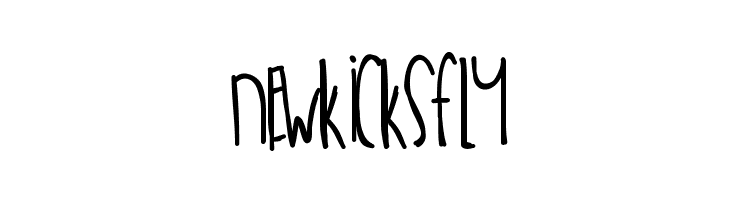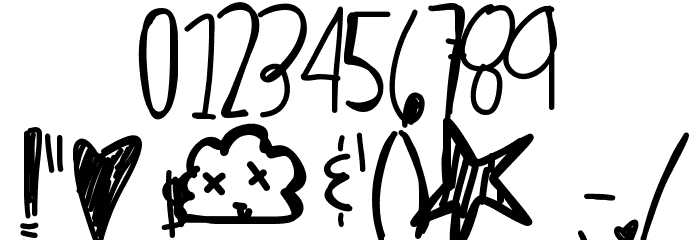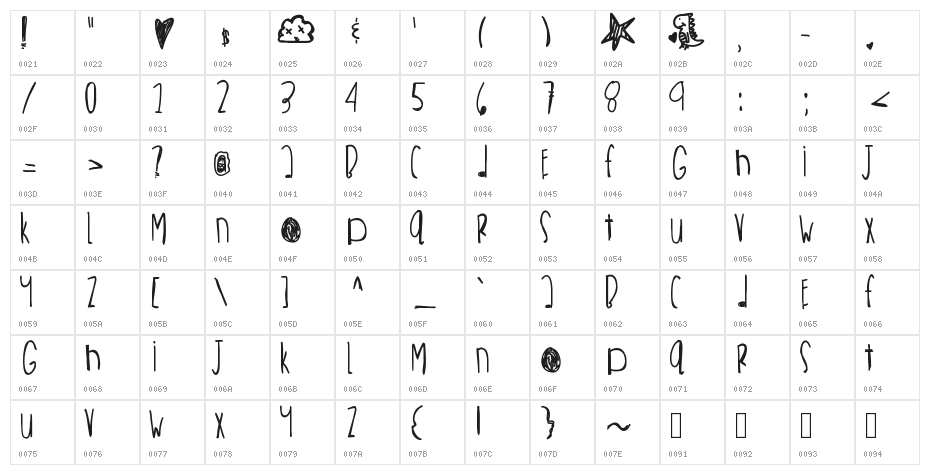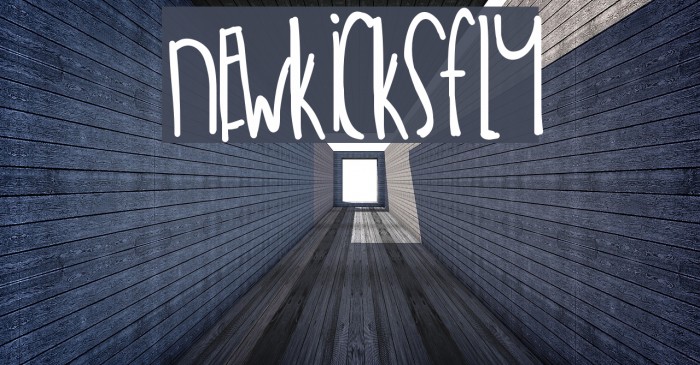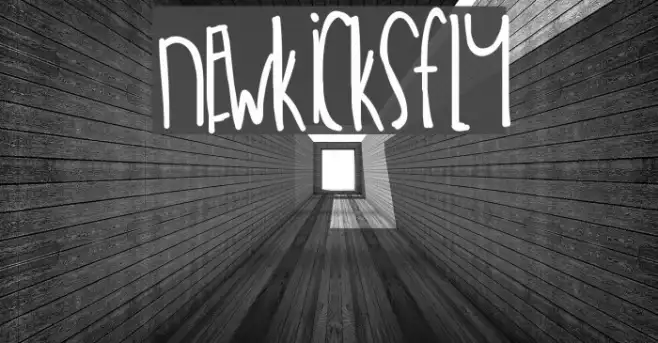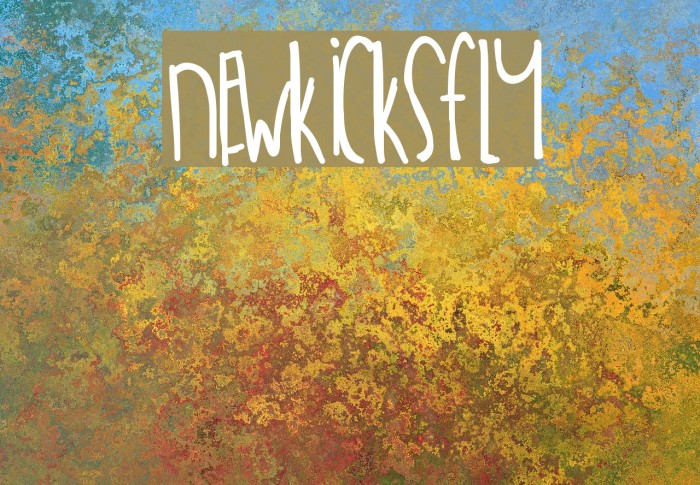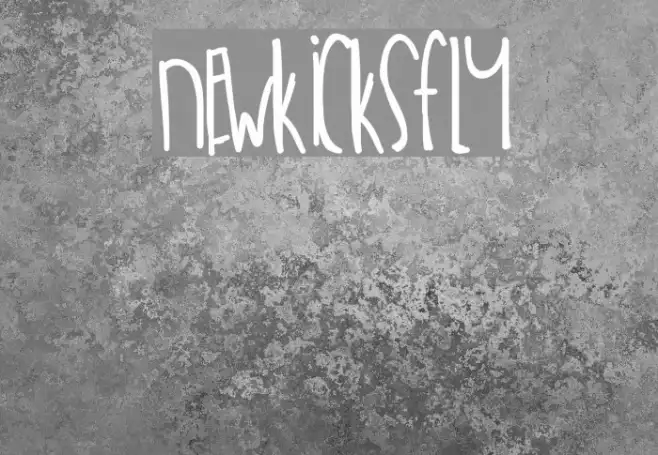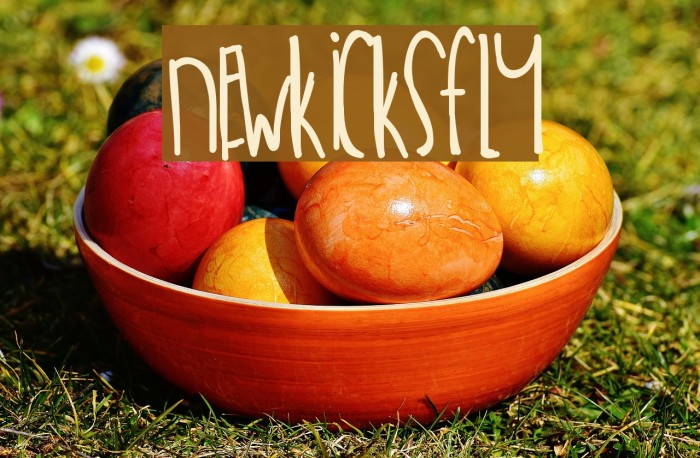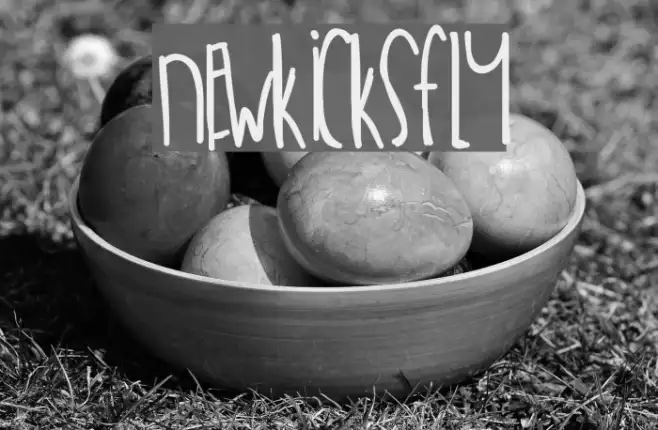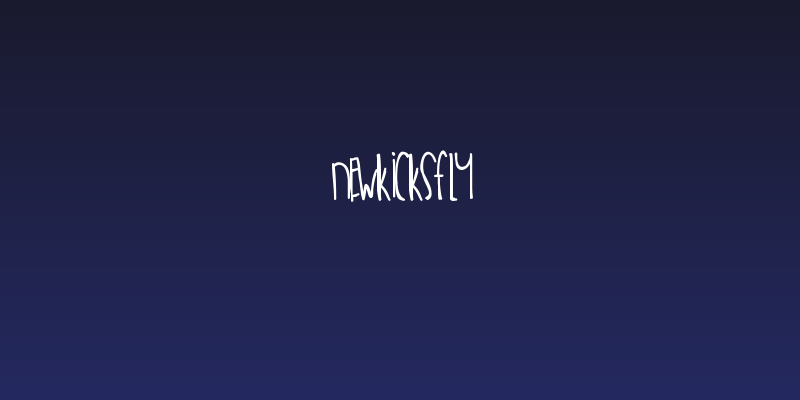
NewKicksFly Font
NewKicksFly Description
This font features a playful and energetic handwritten style with a casual, informal appearance. The letters are tall and narrow, with a consistent stroke width that gives it a uniform look. The characters have a whimsical touch, with some letters featuring unique loops and curves that add personality. The numbers and special characters maintain the same lively style, making it suitable for creative projects. The overall design is approachable and friendly, perfect for conveying a sense of fun and spontaneity.
| Proposed Projects | Ideal for children's books, greeting cards, playful branding, and social media graphics. |